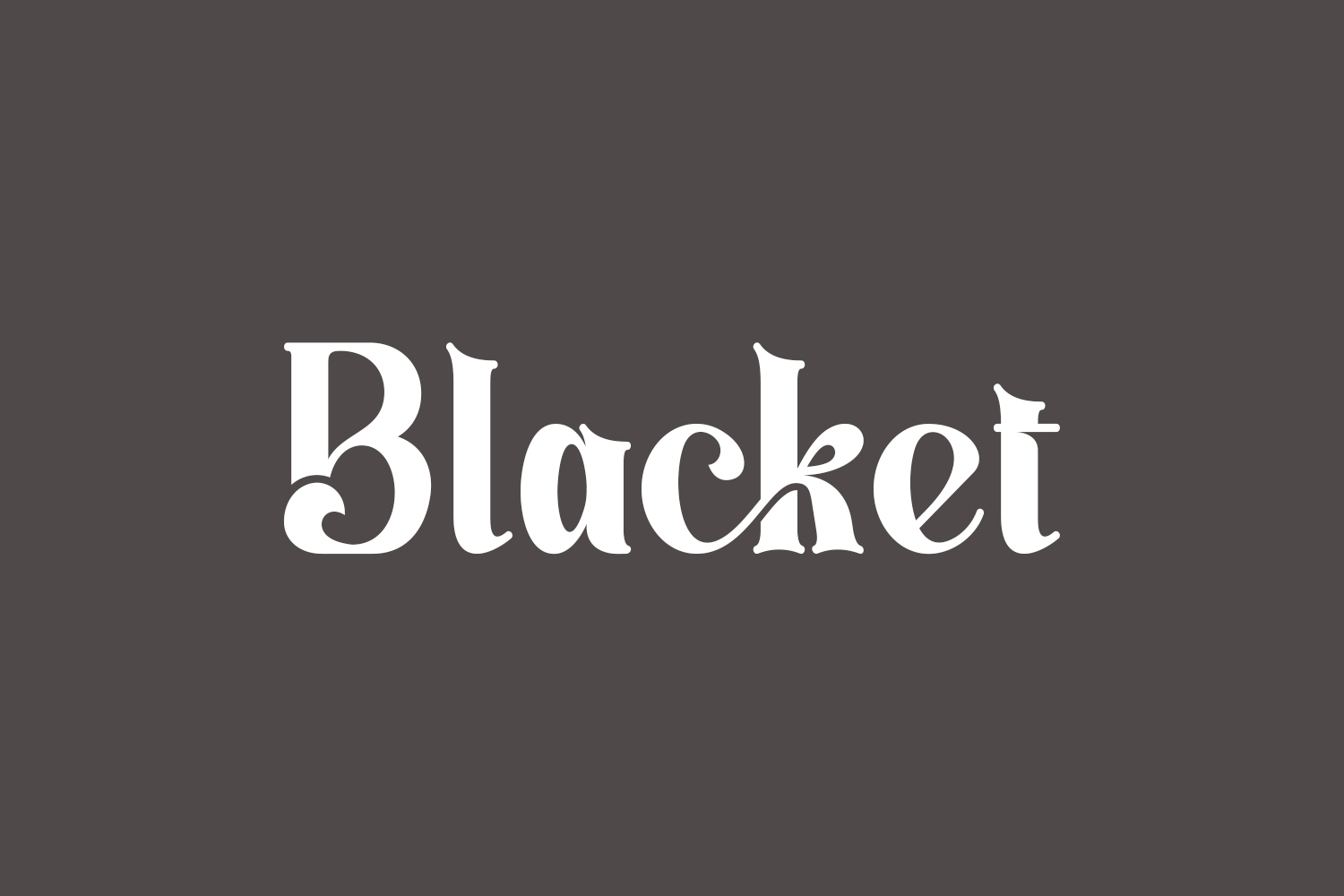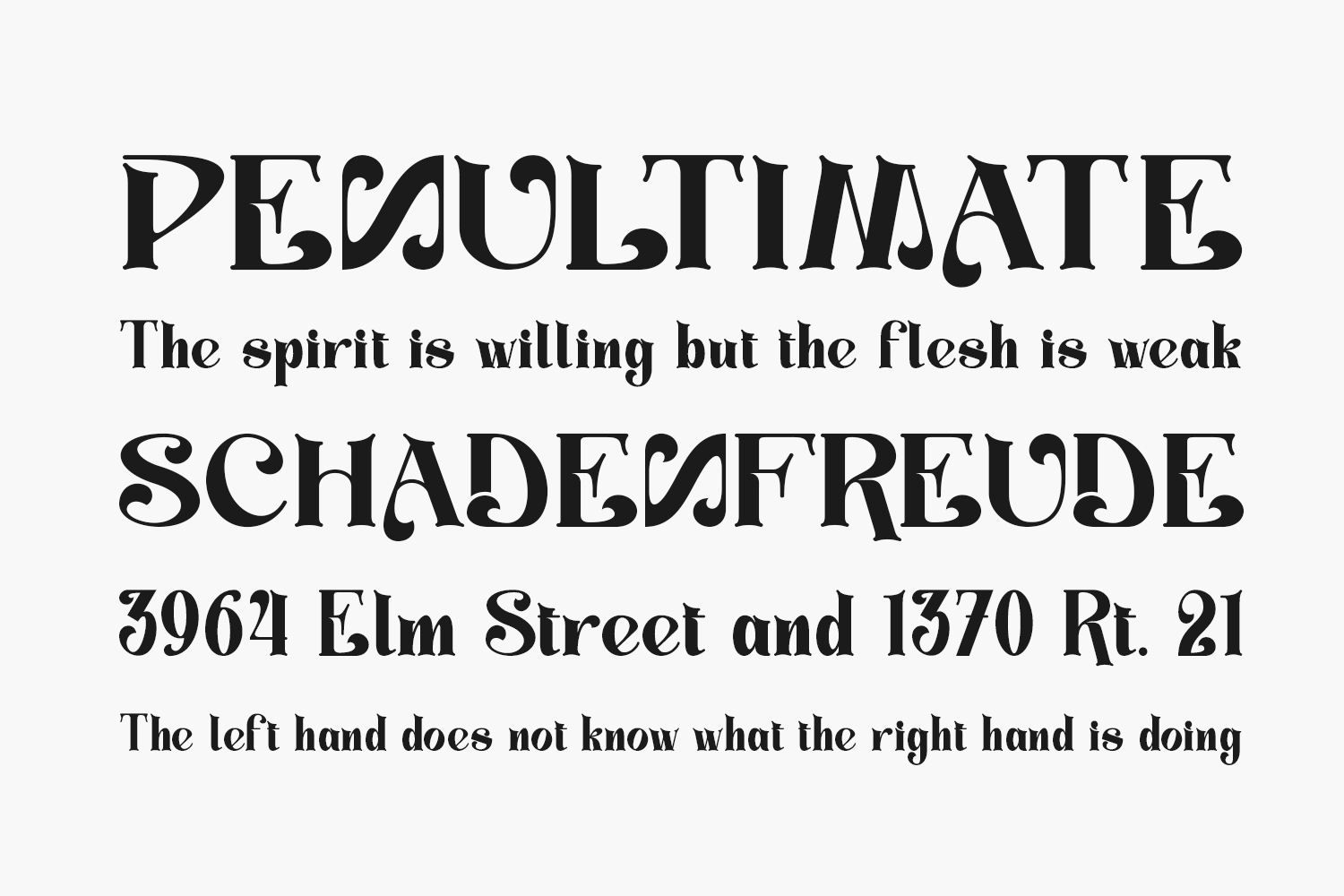
Introducing Blacket Free Font, a sophisticated and stylish serif font designed to elevate your designs. With its clean and elegant style, Blacket is incredibly versatile, making it suitable for a wide range of projects. Whether you’re creating logos, branding materials, print designs, or digital content, Blacket adds a touch of refinement and class to any project. Unlock the potential of your designs with Blacket today. Download the font for free if you need it for personal use or purchase the full version for commercial use.
Designed by Letterara